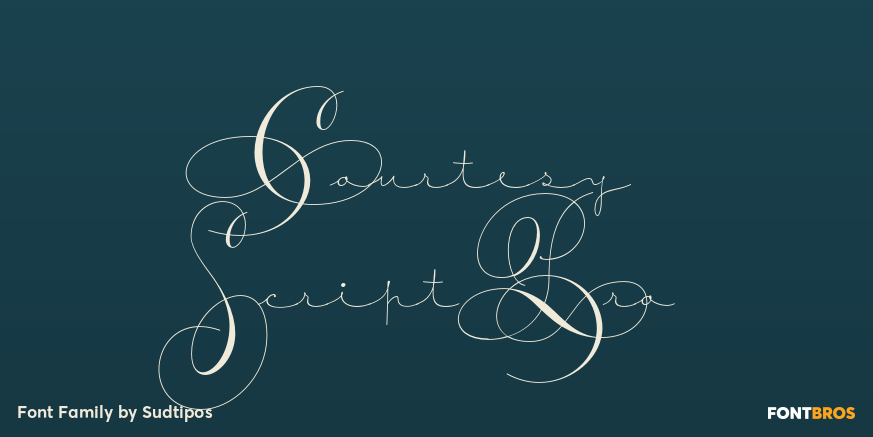
Courtesy Script Pro
About Courtesy Script Pro
As in Victorian times, the precious, hand-lettered look of custom stationery is back in vogue. Enter Courtesy Script, an original creation by Alejandro Paul. Courtesy captures the elegance and propriety of finely practiced Spencerian penmanship, in particular…